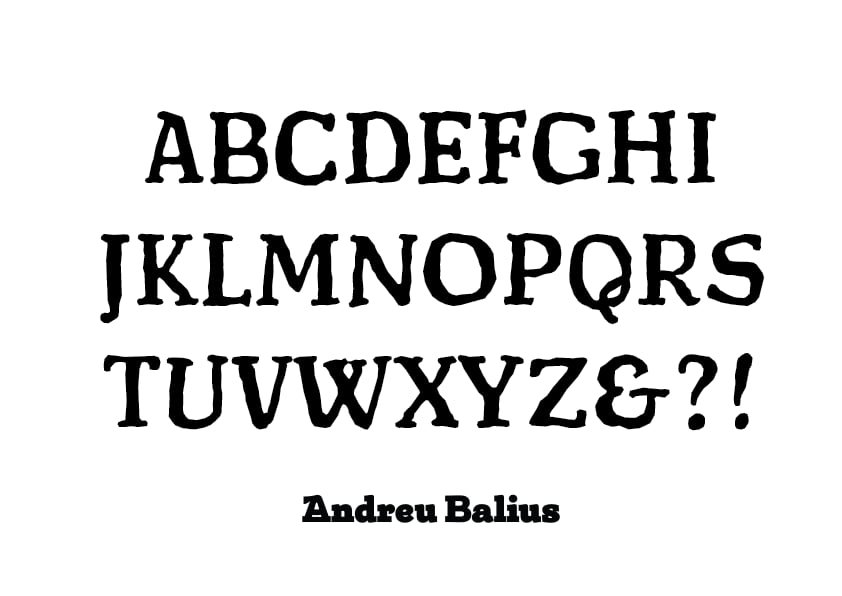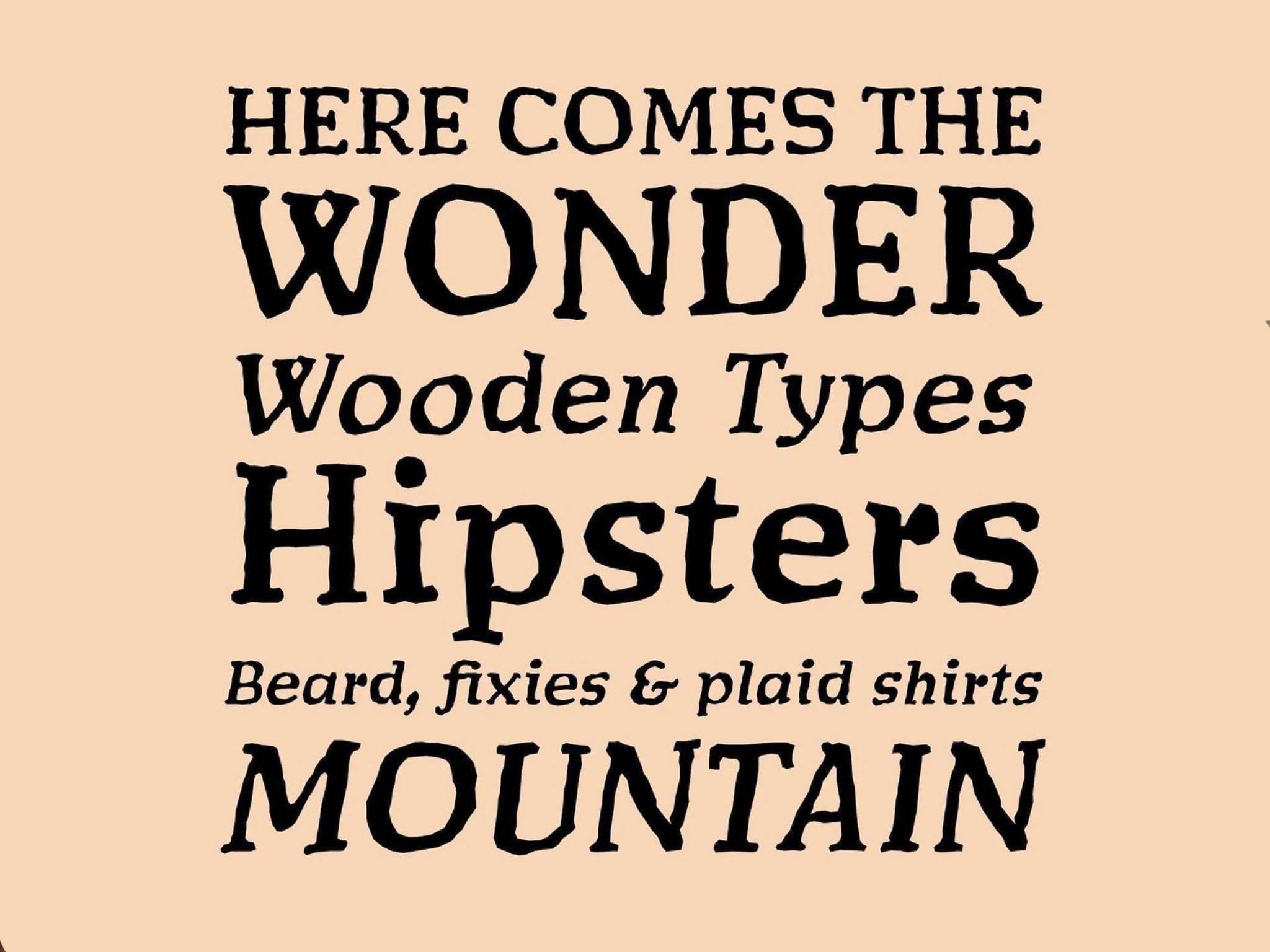
Czeska
Introducing Czeska, designed by Andreu Balius at Type Republic! Czeska was designed taking into account the woodcuts created by Czech artist Votech Preissig (1873-1944) during the early 20th century.
This face has a huge amount of character and stands out beautifully in wood letter. The digital version can be found on the Type Republic website.